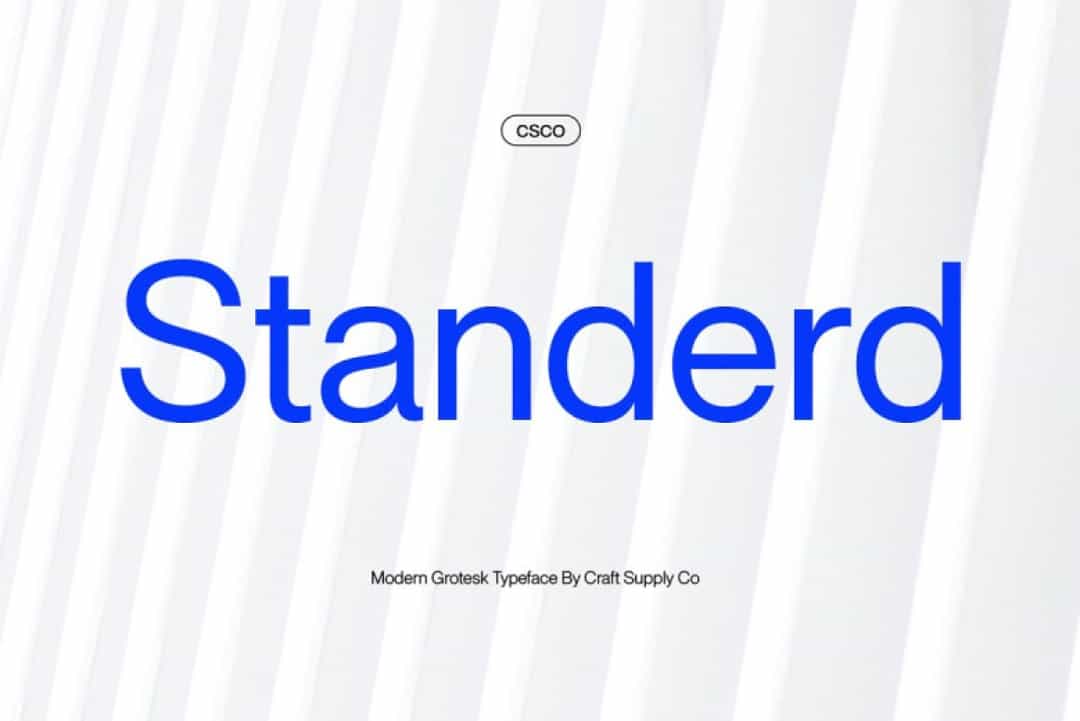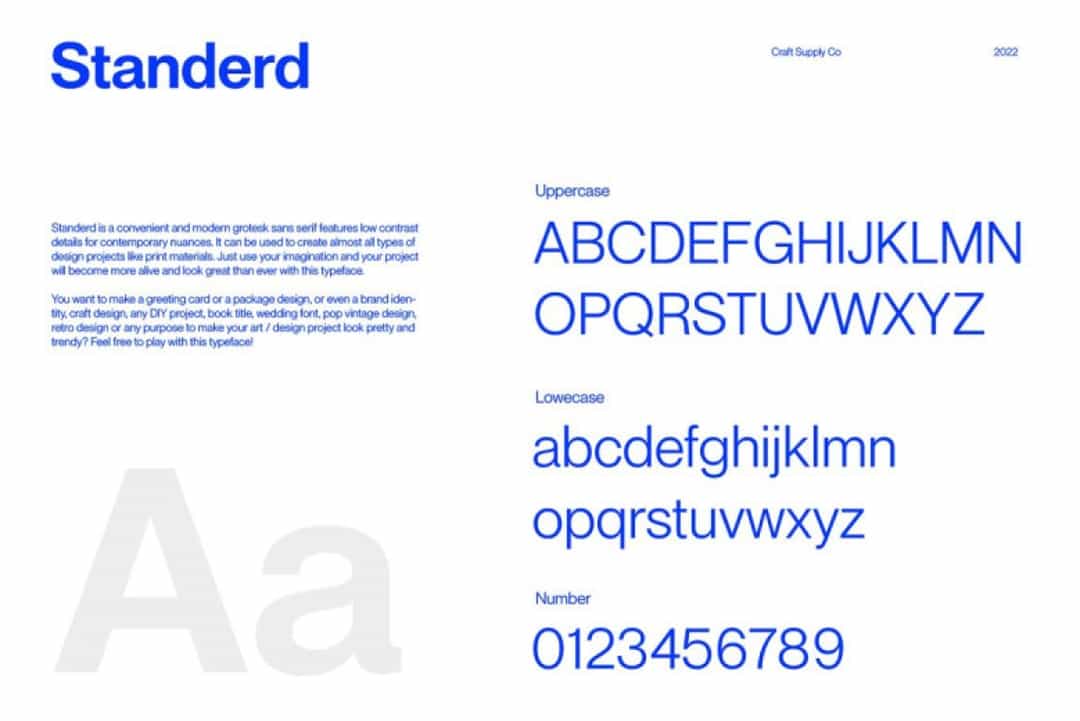
Standerd Font is an elegant and contemporary grotte sans serif font with subtle, low contrast details perfect for smaller text requirements. Ideal for designing printed materials as well as other projects related to graphic design.